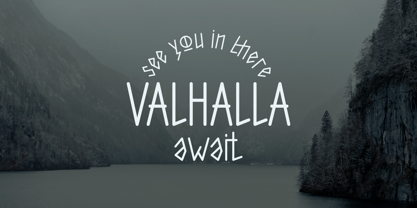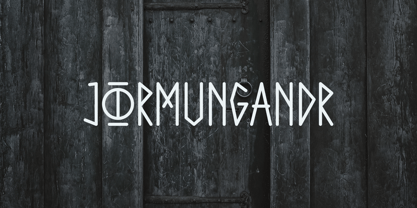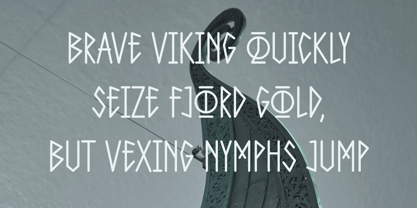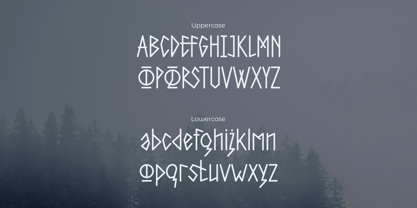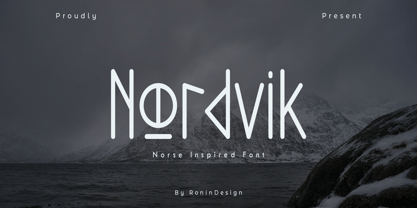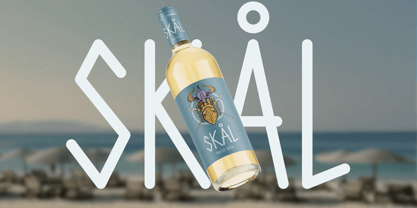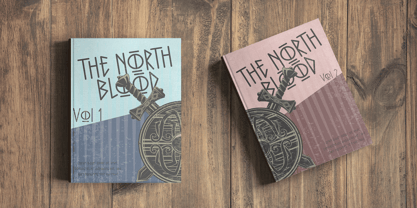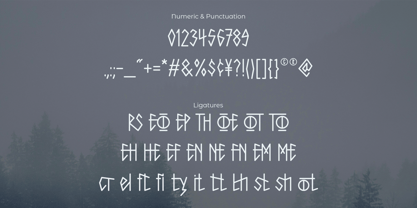
Nordvik
by Ronin Design
The Nordvik Font Family was designed by RoninDesign and published by Ronin Design. Nordvik contains 1 styles.
Nordvik is a minimalist display font inspired by ancient runes and Nordic symbolism. Built with sharp angles and monoline strokes create a mysterious form, and it has a subtle character balancing primal energy with modern simplicity. Nordvik works best for logos, titles, posters, game interfaces, fantasy branding, album covers, and editorial headlines that need a distinctive and mythical voice. Its understated weight and consistent structure make it ideal for dark, atmospheric designs, nature inspired concepts, and modern folklore aesthetics. Perfect for projects that seek a sense of mystery, strength, and timeless identity. Features : • Nordvik regular • Various ligatures • Ton of glyphs • Multilingual accent • PUA encoded characters